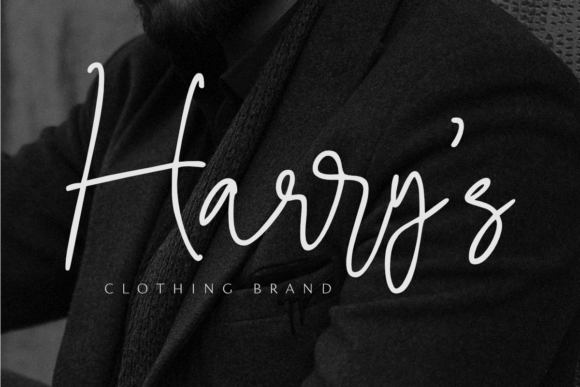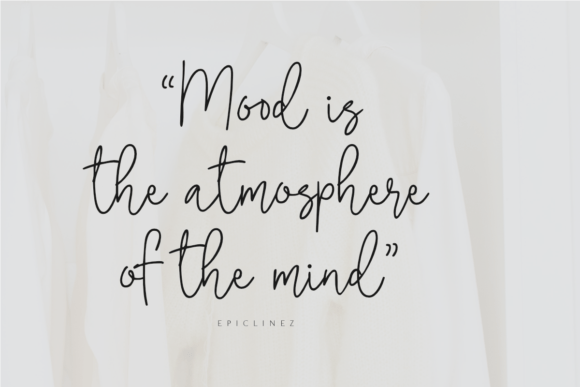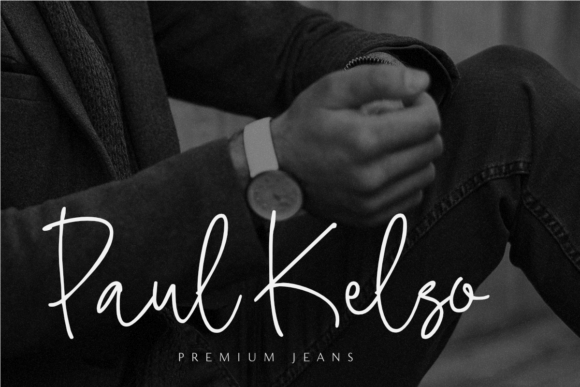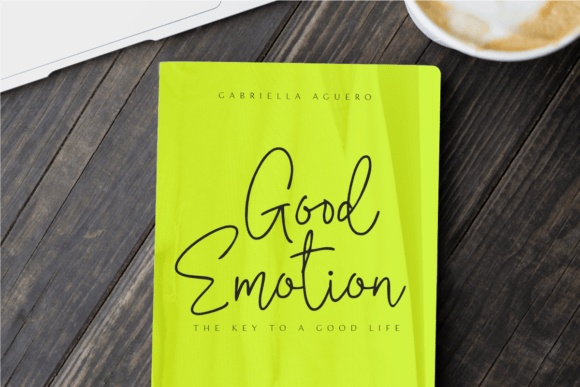
Cisse Font
About Cisse Font
“Cisse” is a classy and elegant script font that adds a touch of sophistication and refinement to your design projects. This font is specifically crafted to enhance the visual appeal of various applications, making it a perfect choice for projects that require a handwritten touch with a touch of elegance.
The font’s elegant style is characterized by its graceful and well-crafted characters. It conveys a sense of sophistication and beauty, making it ideal for projects such as wedding invitations, thank you cards, quotes, greeting cards, logos, and business cards. “Cisse” elevates the visual quality of your designs, making them look stunning and memorable.
In the world of design, fonts play a crucial role in defining the visual identity and mood of a project. “Cisse” excels in these aspects by offering a script font that exudes class and elegance. Its meticulously designed characters make it suitable for a variety of design contexts where a touch of refinement is desired.
In summary, “Cisse” is a font that brings a touch of elegance and class to your design projects, making them visually striking and appealing. Whether you’re working on wedding-related designs, branding, or any project that requires a sophisticated handwritten style, “Cisse” is the font that can help you create designs that are both beautiful and memorable.